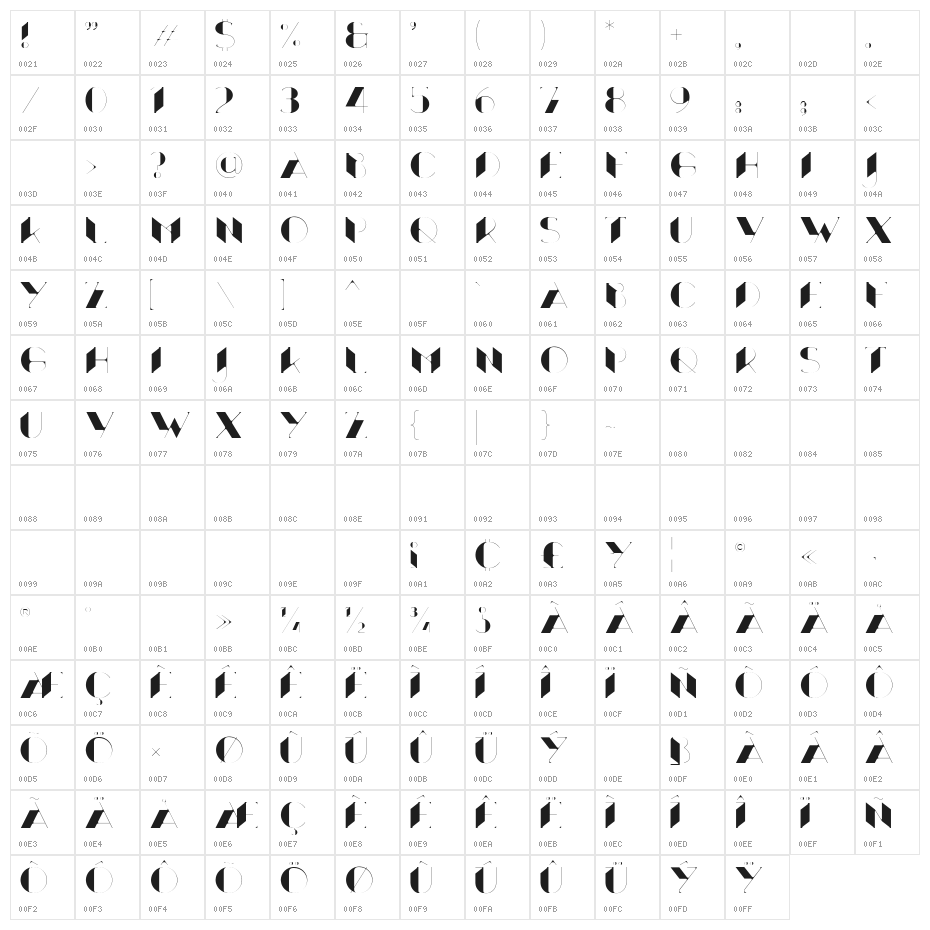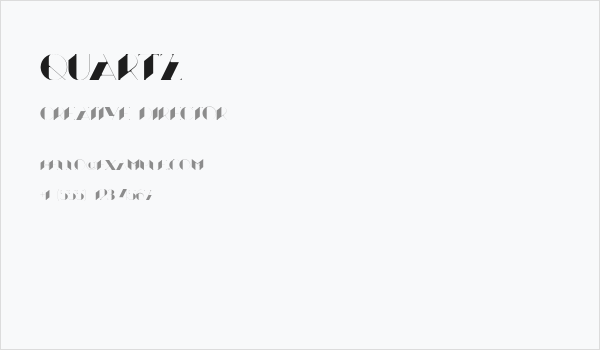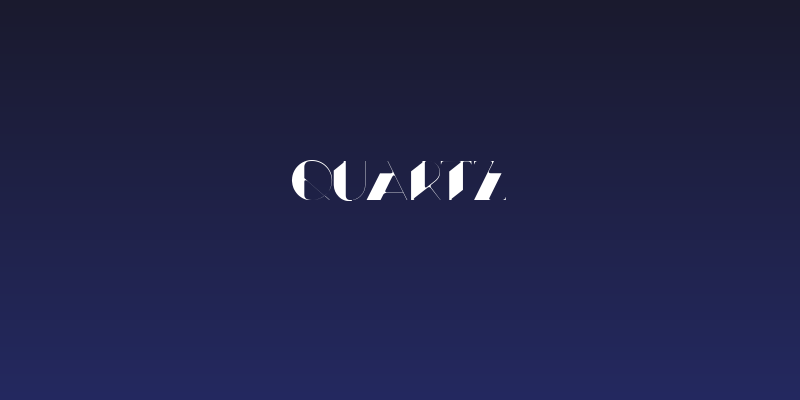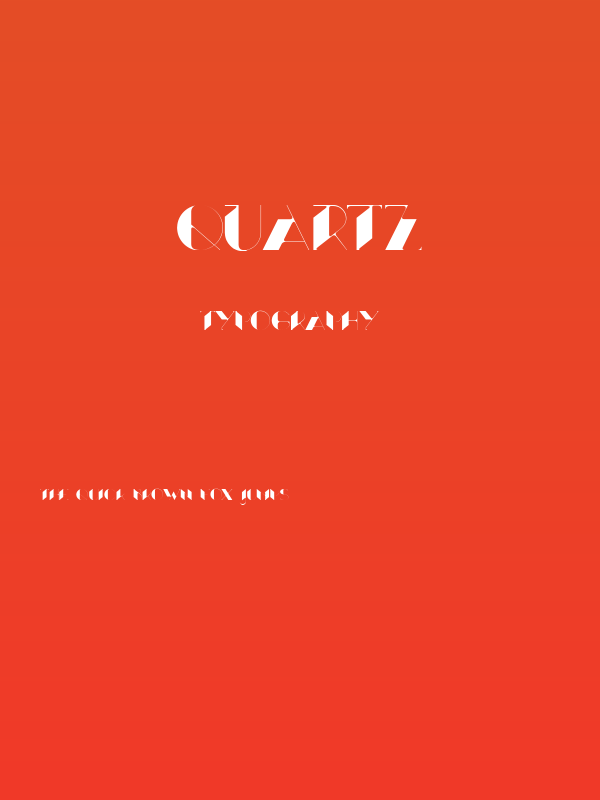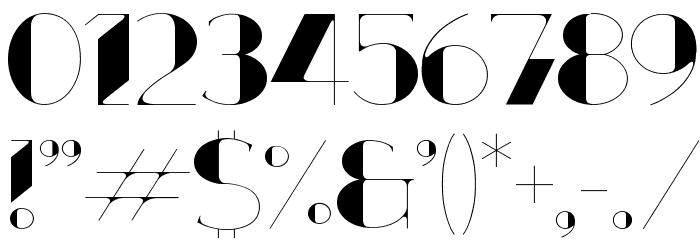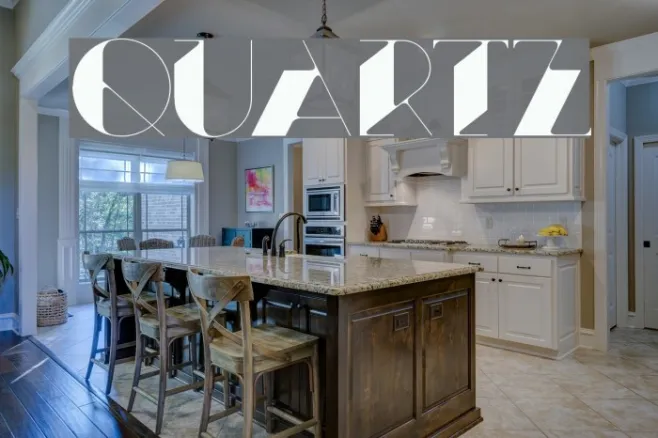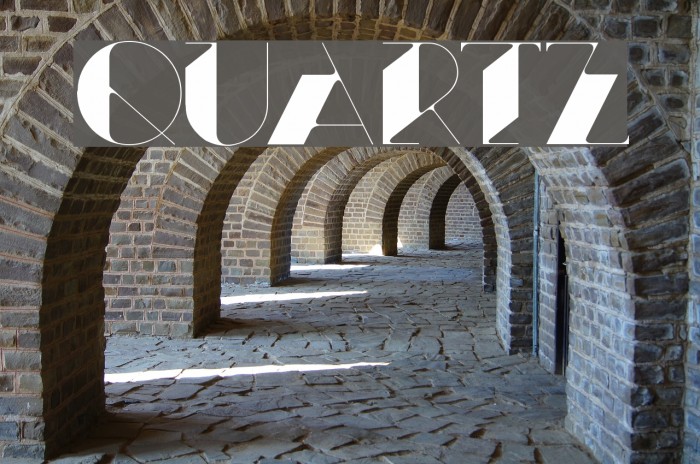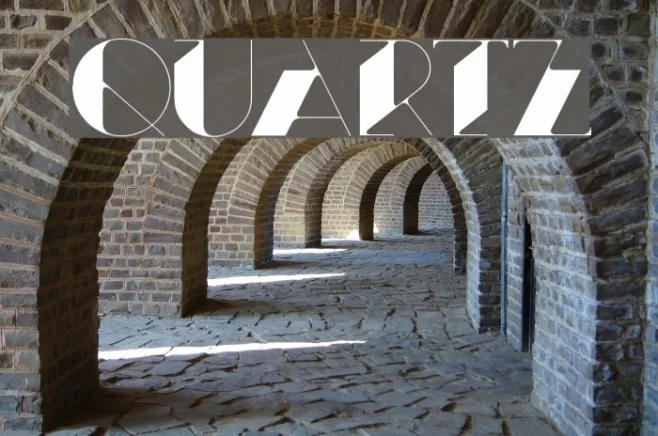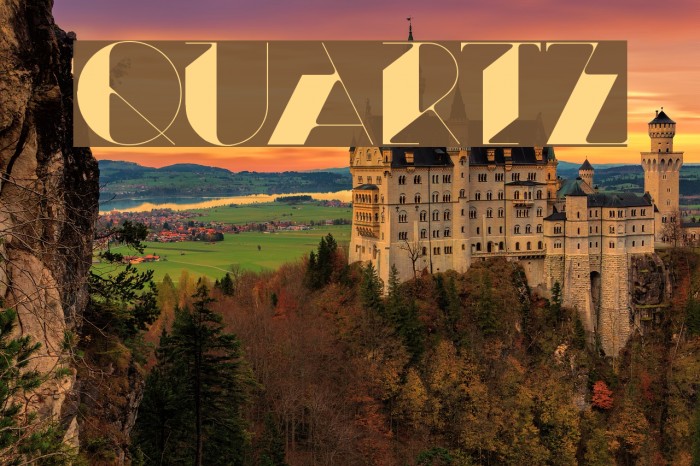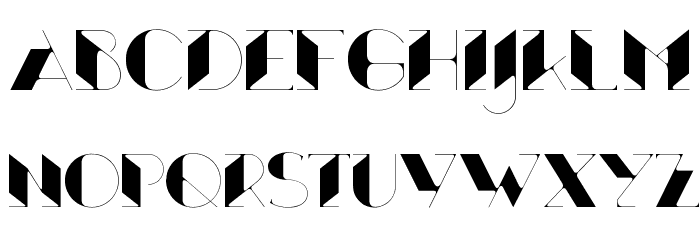
Quartz Font
Quartz Description
This font features a striking and modern design with a geometric and angular aesthetic. The characters are composed of bold, solid shapes combined with thin, delicate lines, creating a high contrast between thick and thin strokes. The uppercase letters are particularly distinctive, with sharp angles and a futuristic feel. The lowercase letters maintain the same geometric style, ensuring consistency throughout the typeface. Numbers and special characters follow the same design principles, making them easily recognizable and visually appealing. This font's unique style makes it suitable for projects that require a contemporary and eye-catching look.
| Overall Style | Modern, Geometric |
| Proposed Projects | Ideal for branding, advertising, and editorial design projects that require a modern and distinctive look. |